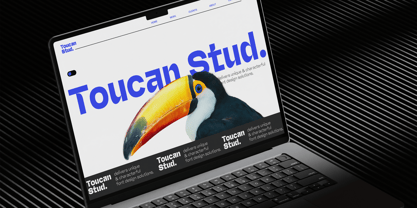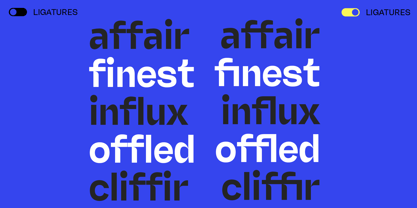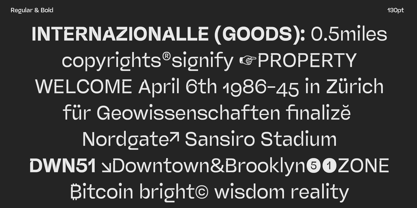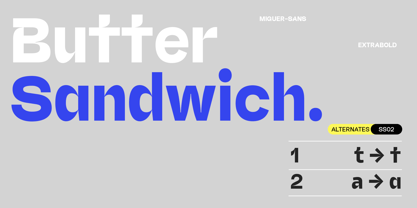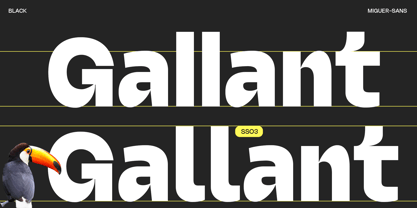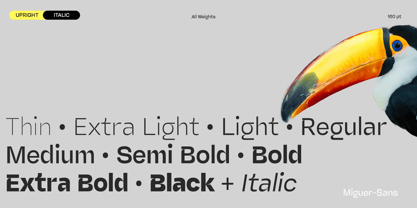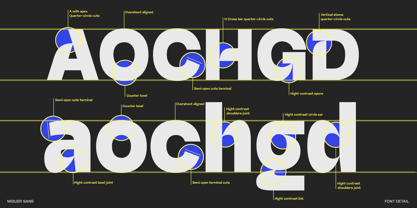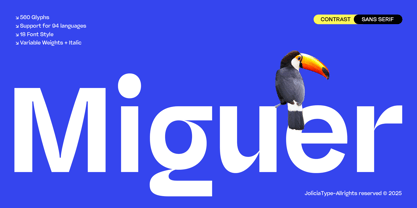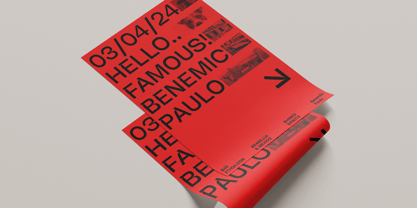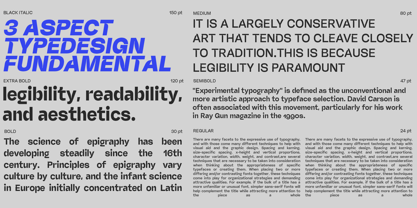
Miguer Sans
by Jolicia Type
The Miguer Sans Font Family was designed by Laire Banyu and published by Jolicia Type. Miguer Sans contains 19 styles and family package options.
Miguer Sans is a high-contrast, modern sans-serif typeface that combines flexibility with a distinctive aesthetic. Featuring 18 styles ranging from Thin to Black, including italics, this font offers a broad spectrum of design possibilities.
Inspired by the shape of a toucan's beak, Miguer Sans showcases elegant letter anatomy with striking contrasts at stem junctions. Its design subtly incorporates elements of grotesque typefaces, known for their simple geometric appearance and limited stroke width variation.
Alternate characters are available for "R, a, f, g, i, l, t, y," allowing for creative stylistic variations. With the addition of a variable font option, you can customize weight and width to suit your needs. Boasting a total of 560 glyphs and supporting 94 languages, Miguer Sans is the perfect choice for versatile and sophisticated designs.